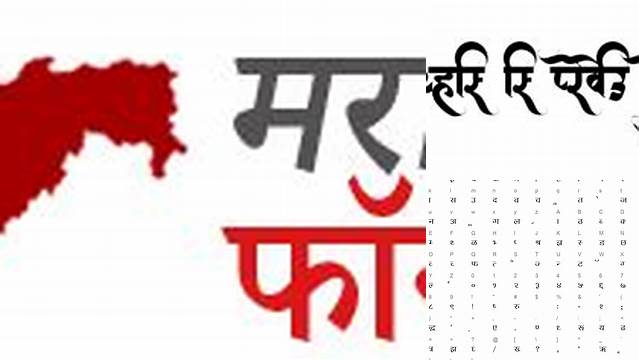
Free Kruti Dev Marathi Fonts: Download Now!
Hey guys! Are you looking to download Kruti Dev Marathi fonts for free? You've come to the right place. In this article, we will provide you with all the information you need to download and install Kruti Dev fonts on your computer. Kruti Dev is one of the most popular fonts used for Marathi typing. It's widely used in government exams, official documents, and various other publications. Let's dive into the world of Kruti Dev fonts and explore how you can get them without spending a dime!
Why Kruti Dev Fonts are Essential
So, why are Kruti Dev fonts so important? Well, for anyone working with Marathi text, especially in professional or academic settings, Kruti Dev is often the go-to choice. These fonts are specifically designed to render Marathi script accurately and aesthetically. Using the right font ensures that your content is readable and professional-looking. Think about it – if you're submitting an official document or a research paper, you want it to look polished, right? That's where Kruti Dev comes in. It provides the clarity and style needed to make your work stand out. Moreover, many official platforms and examinations require the use of Kruti Dev, making it essential for anyone preparing for these assessments. Whether you're composing a formal letter, designing a brochure, or creating digital content, having Kruti Dev fonts in your toolkit is a must for seamless and effective communication in Marathi.